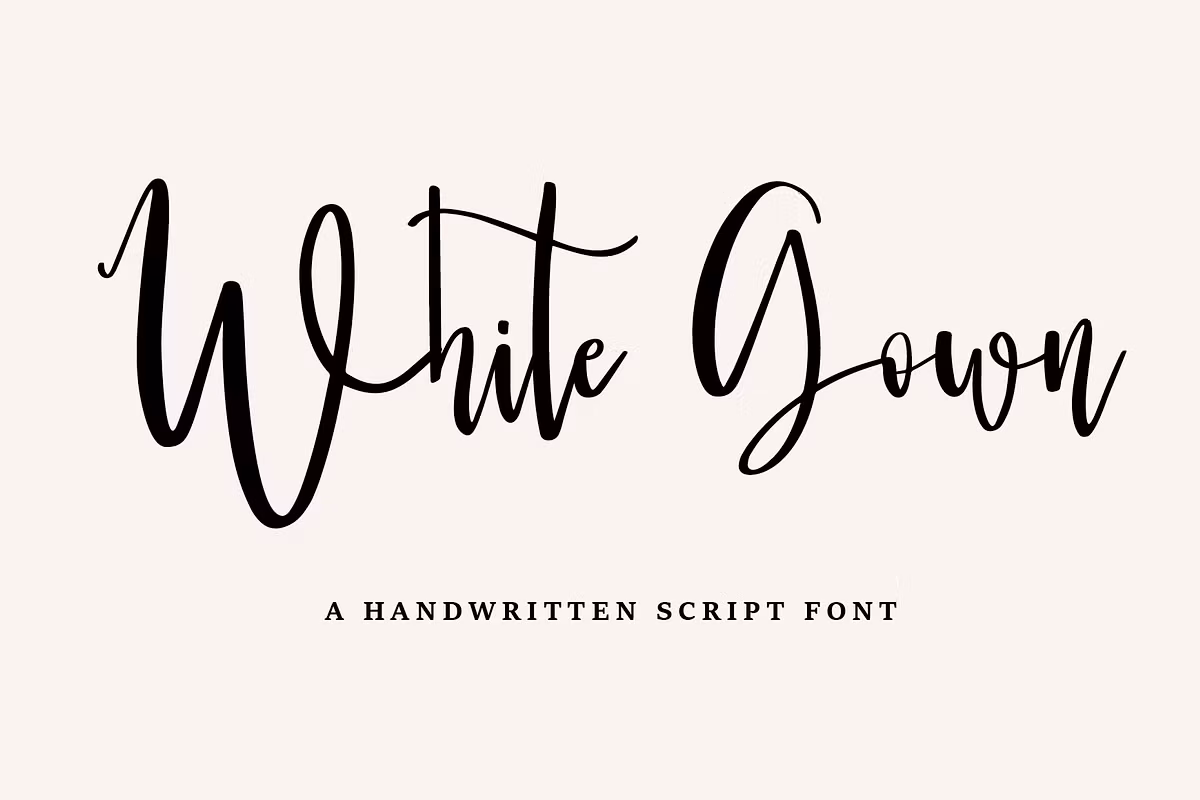
White Gown – Handwritten Script Font Free Download is a delicate and romantic script typeface that captures the elegance of handwritten lettering with a graceful, flowing touch. Perfect for wedding invitations, bridal branding, beauty products, greeting cards, and soft lifestyle content, this font adds charm and sophistication to every word.
With its smooth curves, natural rhythm, and subtle swashes, White Gown brings a sense of warmth and femininity to any design. It’s ideal for projects that need to convey love, elegance, and a personal feel—making it especially popular for modern calligraphy-style branding and stationery.
Dress your designs in elegance and softness with the handwritten beauty of White Gown.